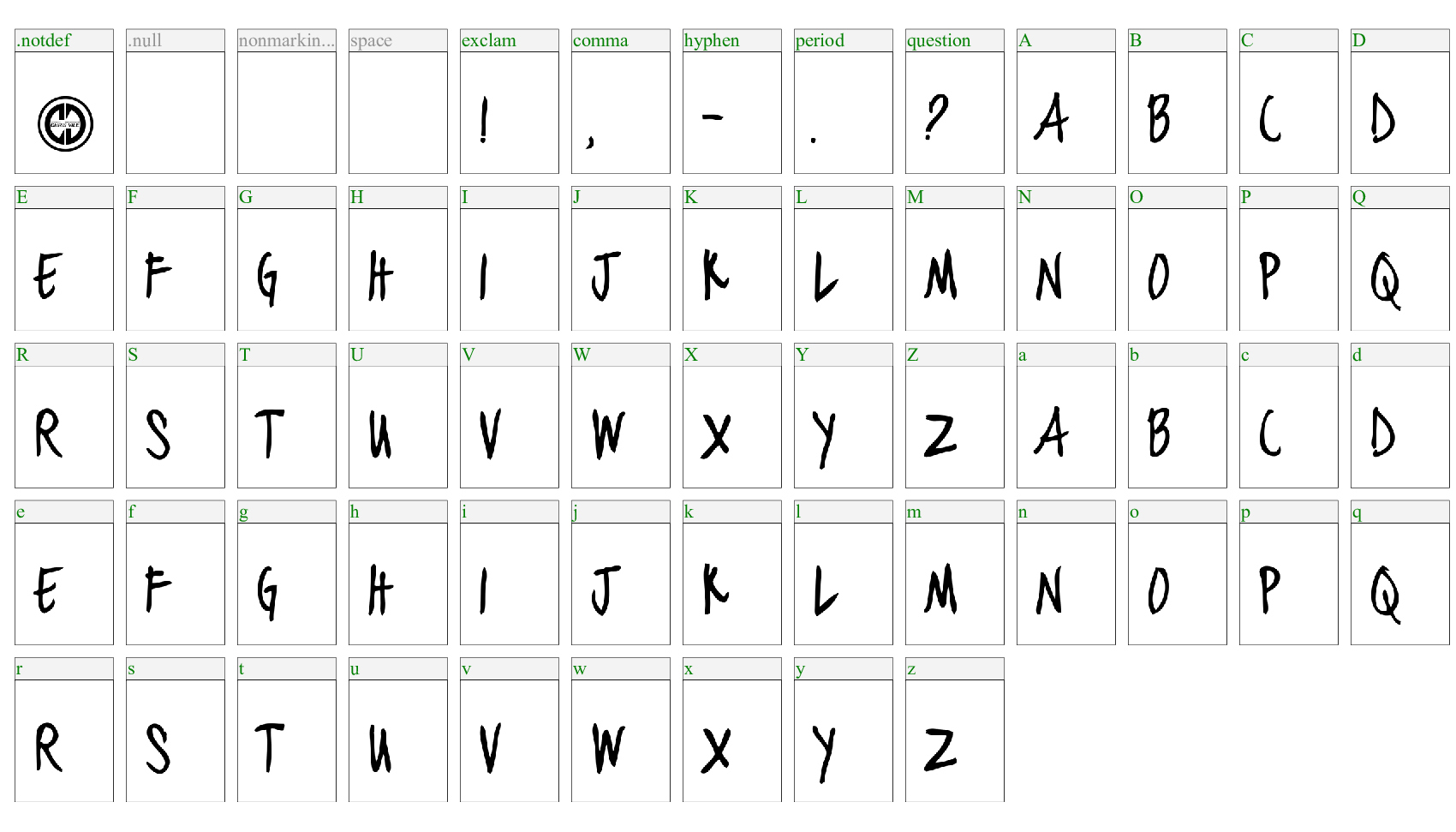
Black Jacket Boys is a stylish and modern handwriting font that is perfect for creating eye-catching headlines, quotes, and other graphic design projects. This font is inspired by the street style of the 1950s and 60s, giving it a timeless and classic feel. The strokes of the letters are bold and confident, lending a touch of masculinity and attitude to any design. The font is designed to have a natural, handwritten feel, making it ideal for use in projects that want to convey a personal, handwritten touch. Whether you're creating posters, flyers, or digital designs, Black Jacket Boys is sure to add a unique and stylish touch to your work.
Lowercase: Same as uppercase
Numbers: No
Symbols and General Punctuation: Limited (available characters shown in image below)
Theme: Handwritten